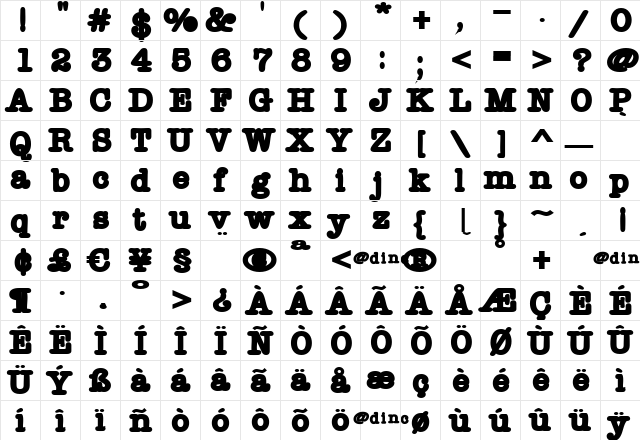
TypeToyNight Regular
Design Context for TypeToyNight Typeface
TypeToyNight takes a measured approach to typography — its balanced proportions and neutral character make it a reliable workhorse for both digital and print work.